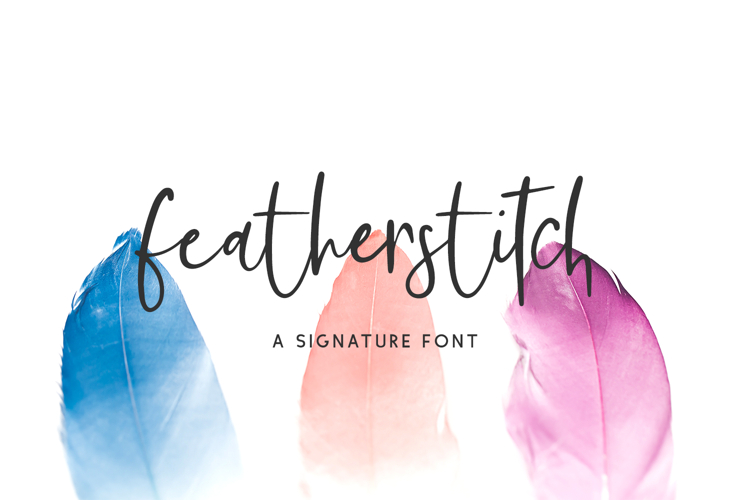
Say hello to Featherstitch Script, a signature style font with just a little bit of bouncy character.
Featherstitch Script is best for:
- website design + website accents - think travel blogs, fashion blogs, & more
- 26 alternate lowercase characters